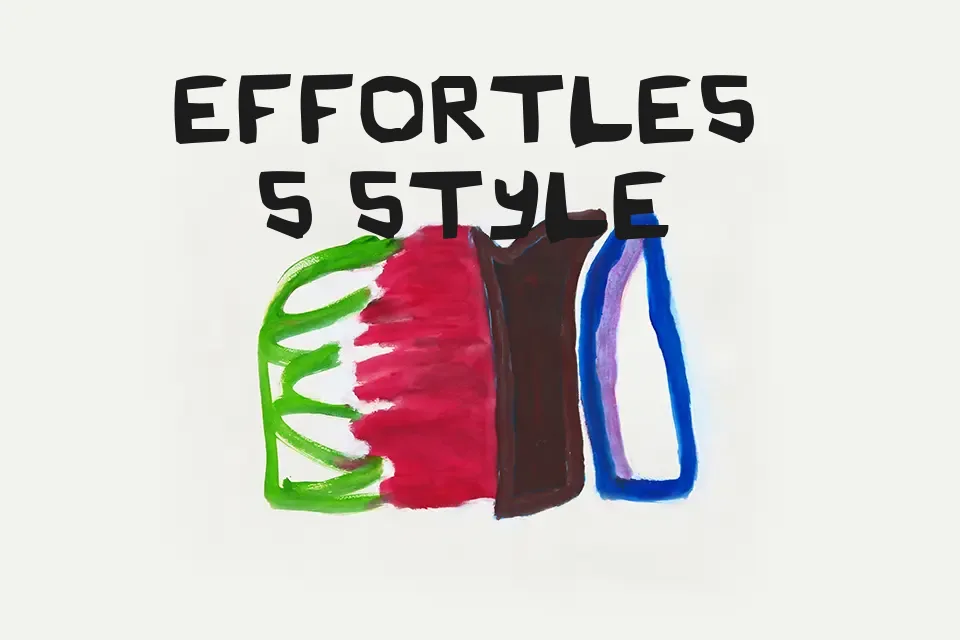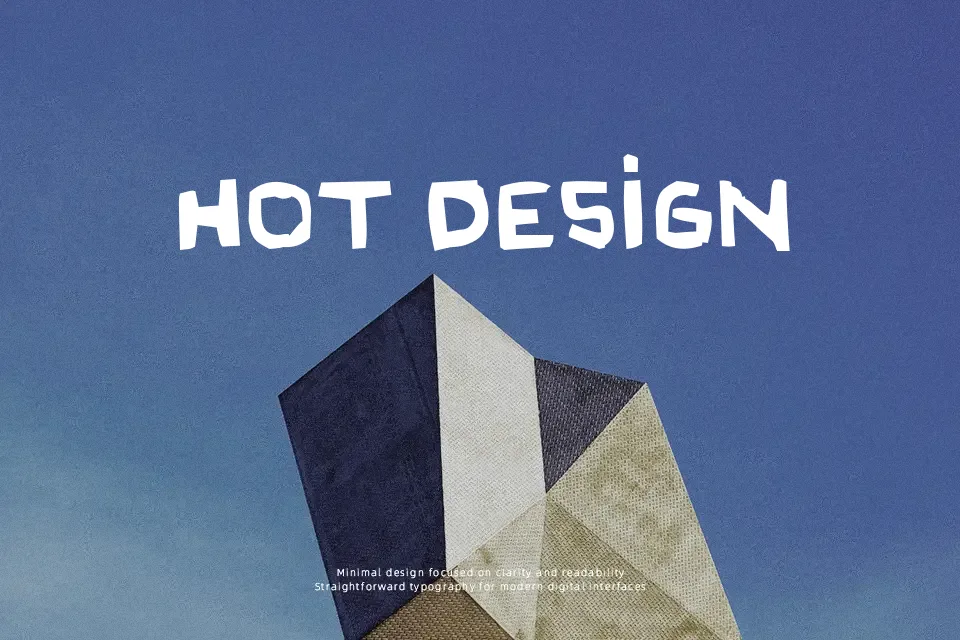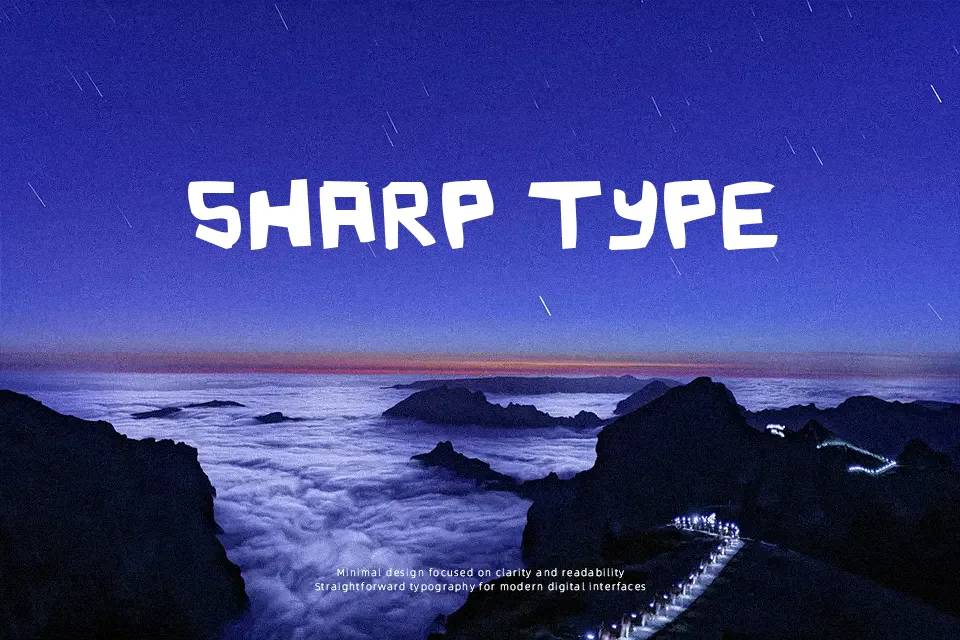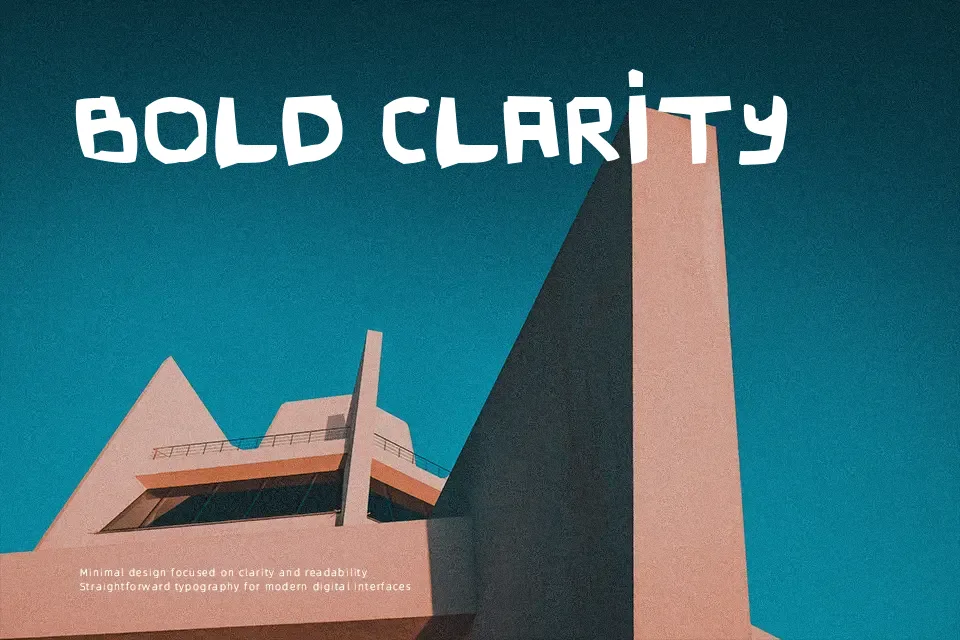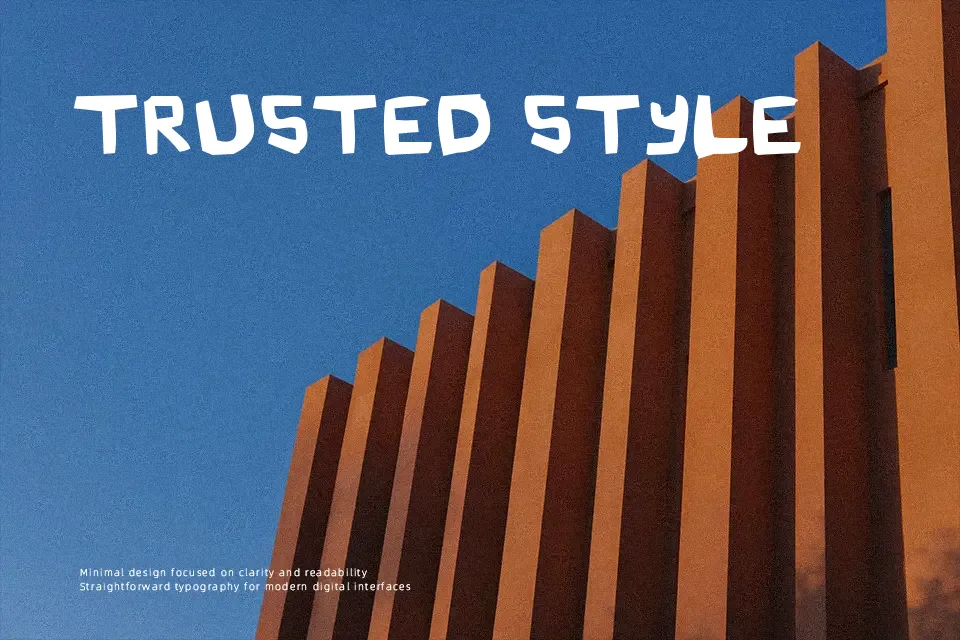
Original Olinda Style Font
Designed by João Paulo Angelim
Original Olinda Style Font works best in large, short-format text where its irregular comic letterforms can remain distinct. The design uses rounded shapes, thick strokes, and varied proportions that create a lively, hand-drawn rhythm. Spacing appears balanced enough for headlines, while the expressive outlines give individual characters a less formal appearance. Uppercase letters, lowercase forms, numerals, and basic punctuation follow the same playful visual direction. It is a practical choice for posters, labels, and children’s-themed graphics. Its decorative structure becomes less comfortable in small captions, dense layouts, or extended reading.
Best For: children’s event posters,playful product packaging,social media headlines,casual café signage
Not Ideal For: long paragraph text,legal documents,small interface labels,dense editorial layouts
Perfect for headline, kids, and packaging, with a bold and comic style.